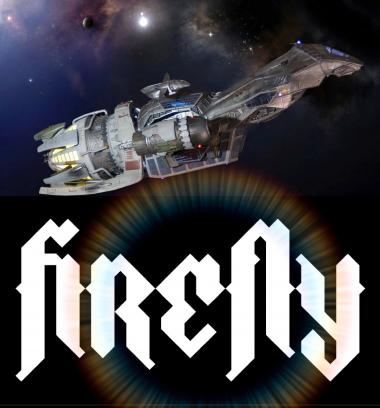
This FontOut:
(8th July 2012)
Ligatures! Ligatures are special characters that connect two or more glyphs. This week, create the word firefly using a ligature for fi, fl, and any other ligatures you want. Let's see how many letters can be connected! Entries must be created using FontStruct.
1st sample.
"i" represents fire
"y" represents wing.
@elmoyenique: Very nice!
@elmoyenique // I love it!
Made in about 2 mins.
May not exactly follow the rules, but I'll probably still make another entry.
Took me a while to get yours Yautja, but now that I see it, it's great! No exactly right for the spirit of the competition, but it's still great to see!
P.S. Yes I know that one is stretching it a bit, but can the fi/y combination count as a ligature?
Everything was made on fontstruct except for the effects, which were made with paint.NET.
What do you think?
Since Adobe Illustrator was the only vector art-making program installed to my computer, I used it to make this font. (I couldn't install the font because I have an Administrator for my computer. I had to remake it.)
I didn't make the font using Illustrator. I made the effects using Illustrator.
Shouldn't it start tomorrow? (15th day) I have still one entry, if I can still add it.
1st: elmoyenique's 1st entry
2nd: Yautja's 2nd entry
3rd: AFT's 1st entry
Oh, right. I'm so sorry, Yautja. You can put in more samples until tomorrow, everyone. Voting starts tomorrow. My mistake.
If so, here goes my entry (even though I think I overdid it... a lot) - click on the image to get a free full HD wallpaper.
I just got a sudden injection of inspiration and motivation, so I opened up Cinema 4D and Photoshop (which is nearly impossible on my PC) and made use of the font. I thought it's worth sharing!